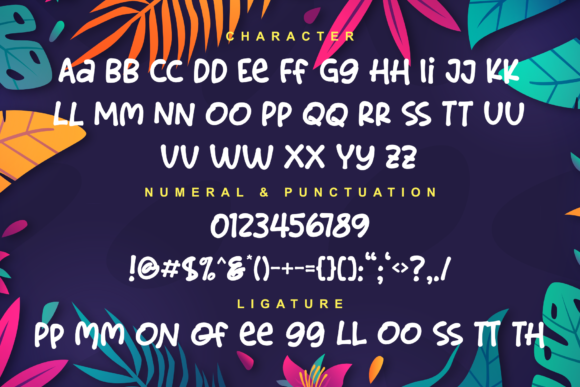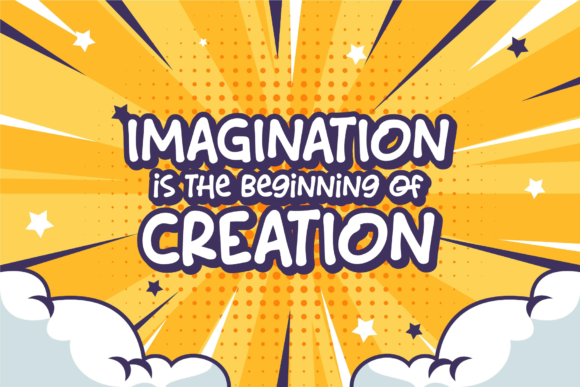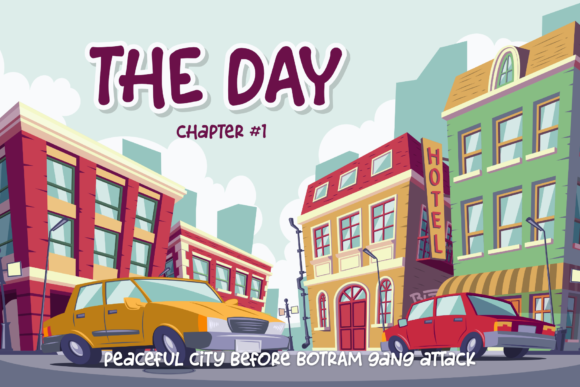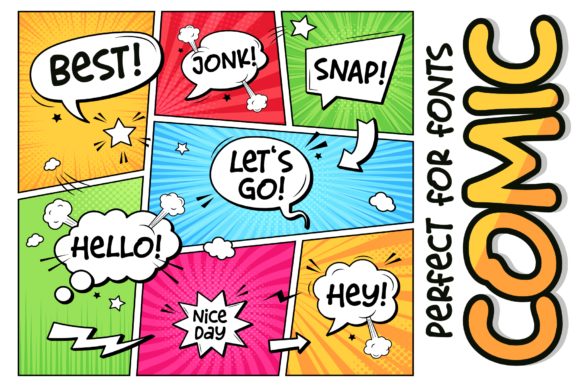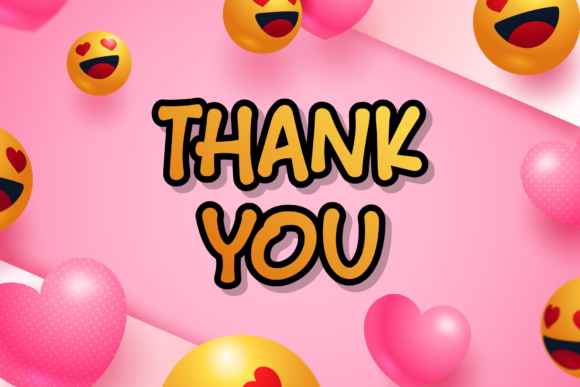
Introducing Content Creator Font: A Relaxed and Casual Handwritten Delight
Are you a designer, craftsperson, or social media influencer looking for a font that embodies a modern yet whimsical style? Look no further than the Content Creator Font, a relaxed and casual handwritten font that will transport your designs to a magical world. In this article, we’ll dive into the features, benefits, and uses of this enchanting font, and explore how it can elevate your creative projects.
The Story Behind Content Creator Font
Content Creator Font is a carefully crafted handwritten font that exudes a sense of friendliness and approachability. Its relaxed and casual vibe makes it perfect for designs that require a personal touch, such as social media graphics, blog posts, and branding materials. The font’s modern yet whimsical style is achieved through its unique blend of smooth lines, subtle imperfections, and playful flair.
Key Features of Content Creator Font
- Handwritten style: Content Creator Font boasts a genuine handwritten look that adds a touch of warmth and personality to your designs.
- Relaxed and casual: The font’s laid-back vibe makes it perfect for designs that require a friendly and approachable tone.
- Modern yet whimsical: Content Creator Font strikes the perfect balance between modern sophistication and playful whimsy.
- Magical world: With its enchanting style, this font will transport your designs to a magical world that captivates your audience.
Benefits of Using Content Creator Font
So, why choose Content Creator Font for your designs? Here are just a few benefits:
- Unique and distinctive: Content Creator Font stands out from more traditional fonts, giving your designs a fresh and distinctive look.
- Emotional connection: The font’s handwritten style and relaxed vibe help create an emotional connection with your audience, making your designs more relatable and engaging.
- Versatile: Content Creator Font is suitable for a wide range of design applications, from digital media to print materials.
- Easily readable: Despite its whimsical style, Content Creator Font remains highly legible, ensuring your message is conveyed clearly.
Using Content Creator Font in Your Designs
Content Creator Font is an incredibly versatile font that can be used in a variety of design contexts. Here are some ideas to get you started:
- Social media graphics: Add a personal touch to your social media posts, stories, and captions with Content Creator Font.
- Blog posts and articles: Use the font to create engaging and readable blog posts, articles, and other written content.
- Branding materials: Incorporate Content Creator Font into your branding materials, such as logos, business cards, and letterheads.
- Crafting and DIY projects: Add a touch of whimsy to your crafting and DIY projects, such as handmade cards, gift tags, and signs.
Tips for Getting the Most Out of Content Creator Font
To maximize the impact of Content Creator Font, keep the following tips in mind:
- Experiment with colors: Play around with different color schemes to find the perfect combination that complements your design.
- Mix and match: Combine Content Creator Font with other fonts to create a unique and visually appealing typography.
- Pay attention to spacing: Adjust the spacing between letters and lines to ensure optimal readability.
| Author | DUMADI |
In conclusion, Content Creator Font is a relaxed and casual handwritten font that brings a modern yet whimsical style to your designs. Its unique features, benefits, and versatility make it an excellent choice for designers, craftspersons, and social media influencers looking to add a touch of magic to their creative projects. With Content Creator Font, you’ll be able to create engaging, relatable, and memorable designs that captivate your audience and leave a lasting impression.